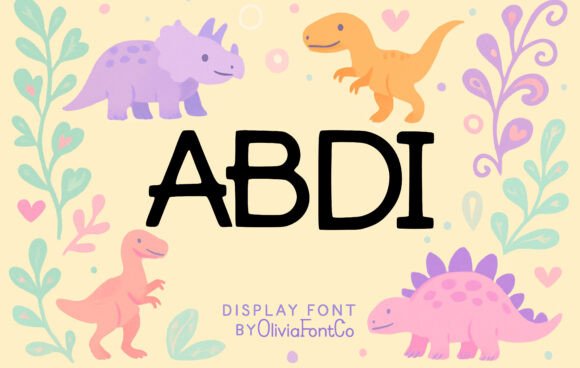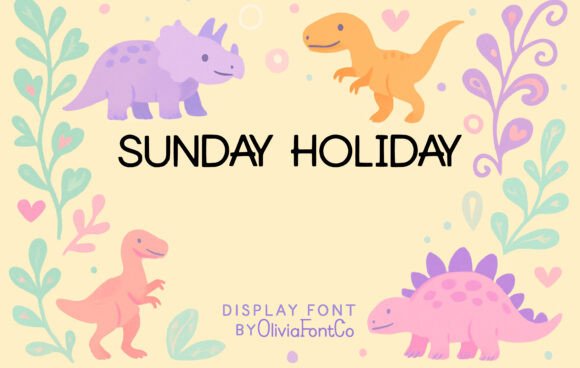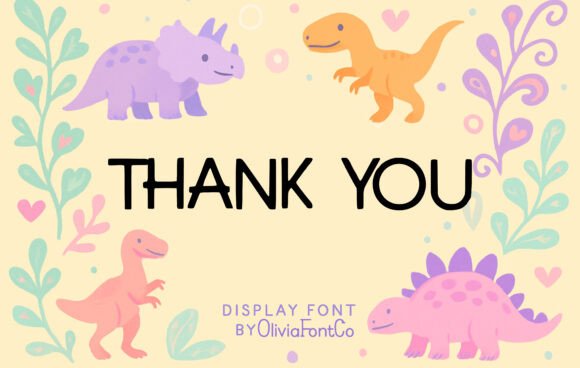
Abdi Font: A Cute Display Font for Playful Branding & Social Media
About the Abdi Font
We are excited to introduce Abdi Font, a must-have typeface for any serious designer. Abdi is designed to be a true favorite and it has the potential to take your creative ideas to the highest level
Abdi’s strong, legible forms make it ideal for headlines, branding applications, and short-form text on posters or packaging. Its confident presence works well for projects requiring a bold statement. However, its weight might prove less suitable for extended body copy or UI elements where readability over longer stretches is paramount.
Consider pairing Abdi with a clean sans-serif like Lato for a modern contrast, or a delicate script font such as Great Vibes for invitations or branding that requires a touch of elegance. A geometric sans-serif like Futura would also create a balanced and sophisticated pairing.
Abdi projects a bold and modern personality, lending itself well to projects requiring a strong, confident visual identity. Brands targeting a sophisticated, yet approachable audience would find Abdi a fitting choice.
Abdi Font Usage Examples
Abdi Font Example